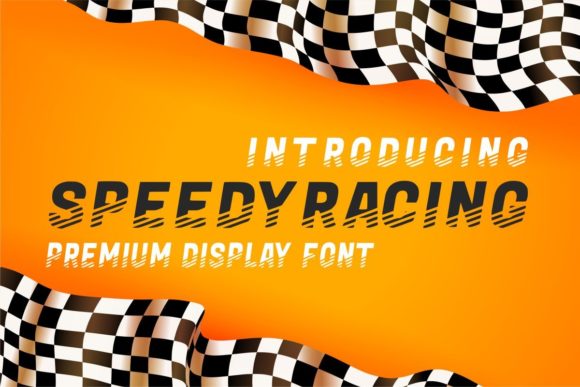
Introducing Speedyracing Font: The Epitome of Power, Speed, and Exhilaration
In the realm of digital design, fonts hold the power to evoke emotions, convey messages, and create visual impact like no other element. Among this vast universe of typographic wonders, the Speedyracing Font emerges as a true champion, embodying the very essence of power, speed, and exhilarating energy.
Crafted with meticulous attention to detail by Im.design.art, Speedyracing Font is not just a collection of characters; it's an adrenaline-fueled journey that captures the raw energy of the racetrack and transforms it into a visual symphony. Its dynamic strokes, sharp angles, and carefully placed curves ignite a sense of urgency, propelling your designs to the forefront of attention.
Whether you're designing for a high-octane racing event, a sleek sports brand, or simply seeking to inject a surge of energy into your creative projects, Speedyracing Font is your ultimate weapon. Its versatility extends far beyond the racetrack, making it an ideal choice for logos, t-shirt designs, backgrounds, and any project that demands a touch of speed and dynamism.
Immerse yourself in the world of Speedyracing Font and unleash your creativity. Let its powerful characters fuel your imagination and propel your designs to new heights of visual excellence. The possibilities are endless, and the only limit is your own imagination.
Reasons Why Speedyracing Font is Your Perfect Creative Companion:
1. **A Rush of Adrenaline for Your Designs:** Speedyracing Font infuses your designs with an exhilarating sense of speed and power, making them leap off the screen with dynamic energy.
2. **Versatility at Its Finest:** From racing-themed projects to logos, t-shirts, backgrounds, and beyond, Speedyracing Font adapts seamlessly to a wide range of design needs.
3. **The Perfect Match for Creative Projects:** Unleash your creativity and let Speedyracing Font elevate your designs to new heights, transforming your vision into a captivating reality.
4. **A Font That Speaks Volumes:** With its bold strokes and sharp angles, Speedyracing Font commands attention and communicates your message with unwavering impact.
5. **Simplicity with a Touch of Excitement:** The font's clean and legible design ensures clarity, while its unique style adds a touch of excitement to your creations.
Fuel your designs with the raw power of Speedyracing Font and experience the exhilarating rush of creativity. Let its dynamic energy ignite your imagination and propel your projects to the forefront of visual excellence.